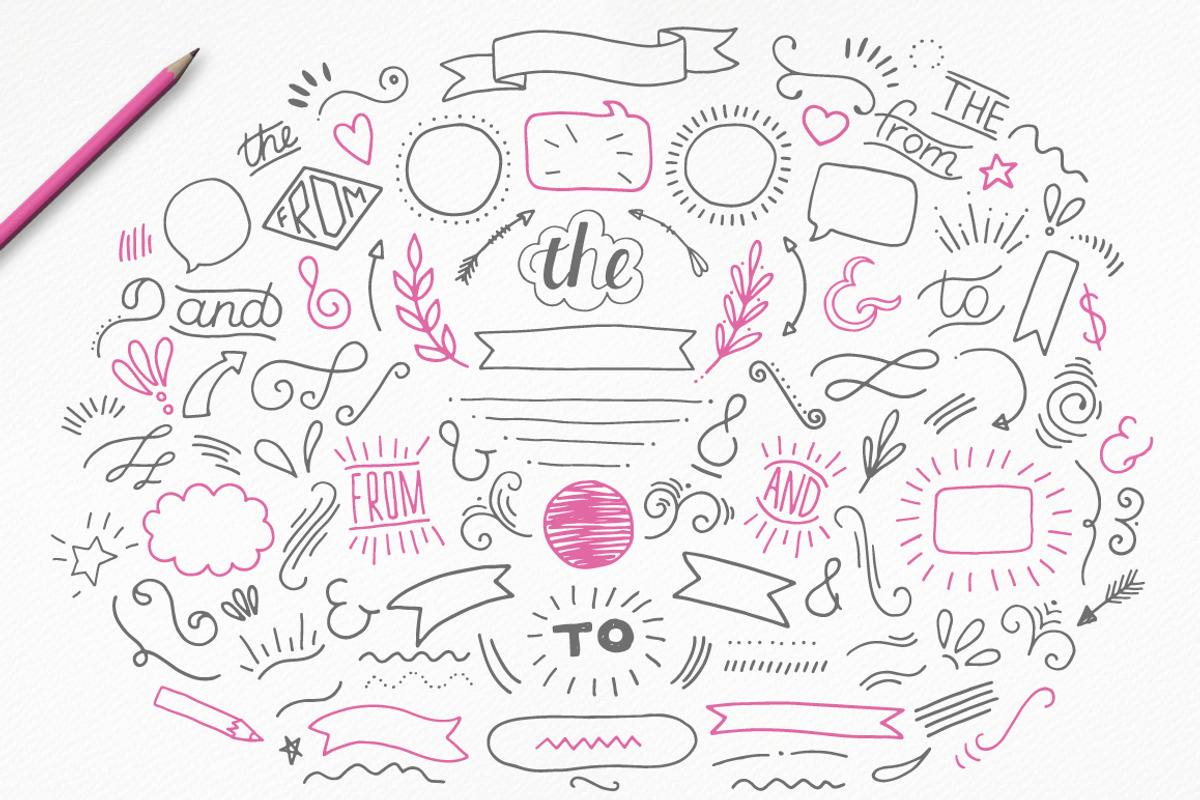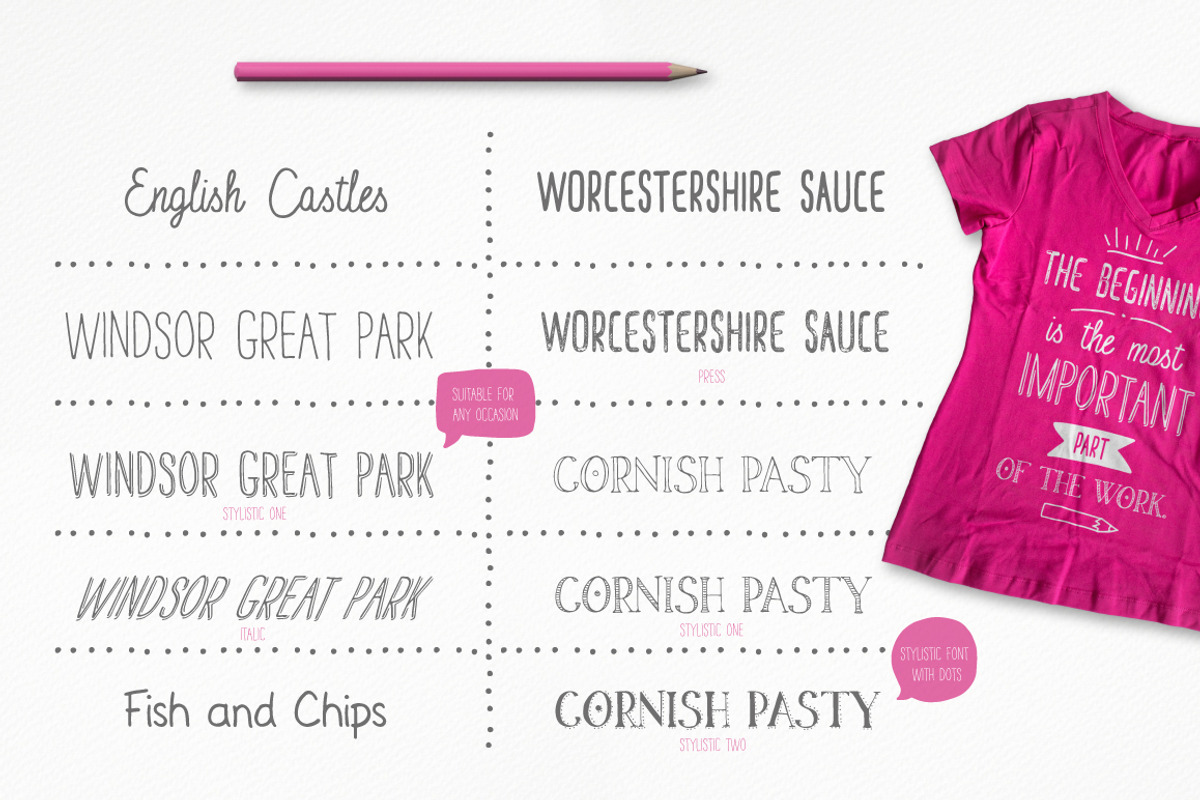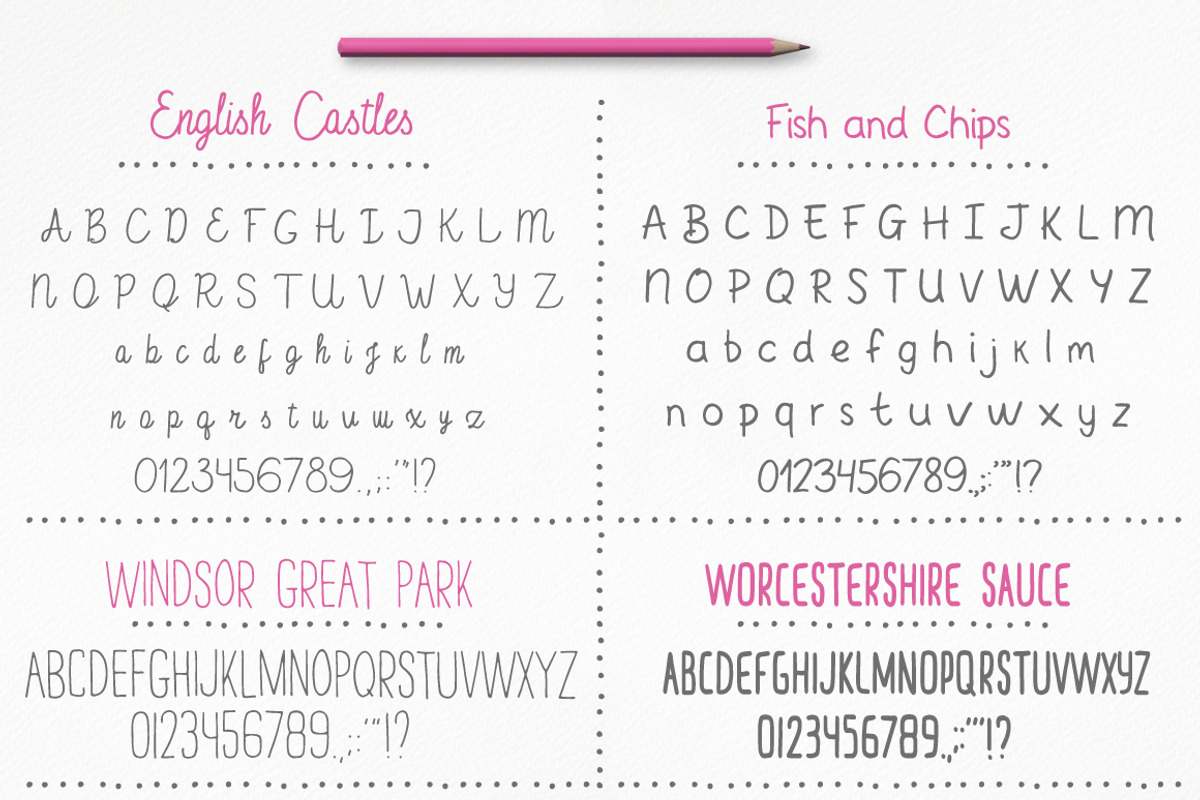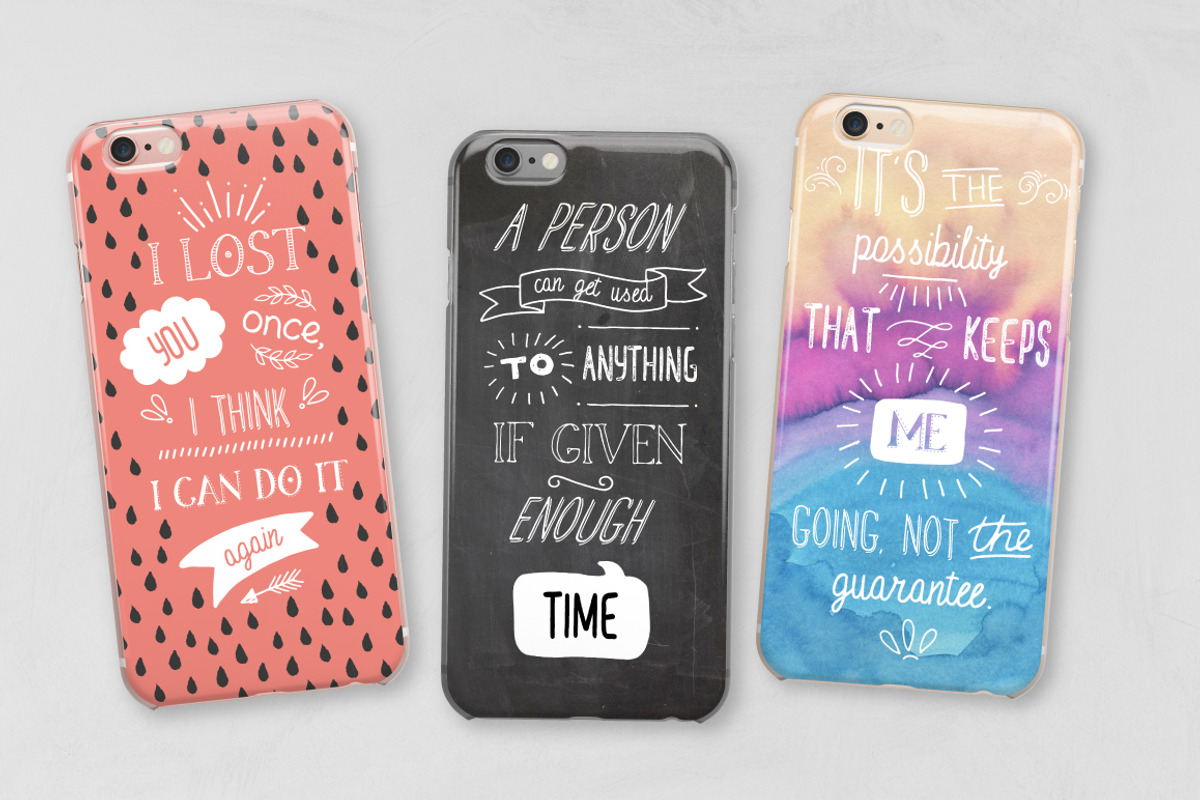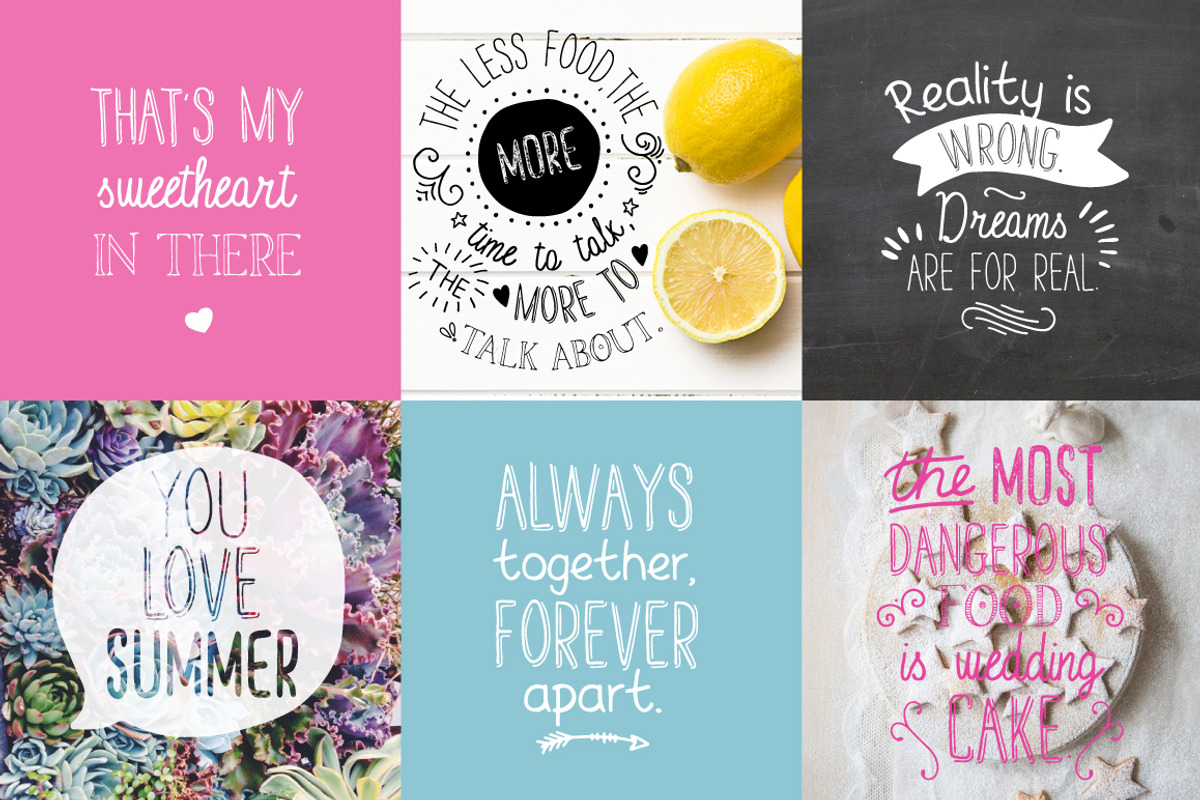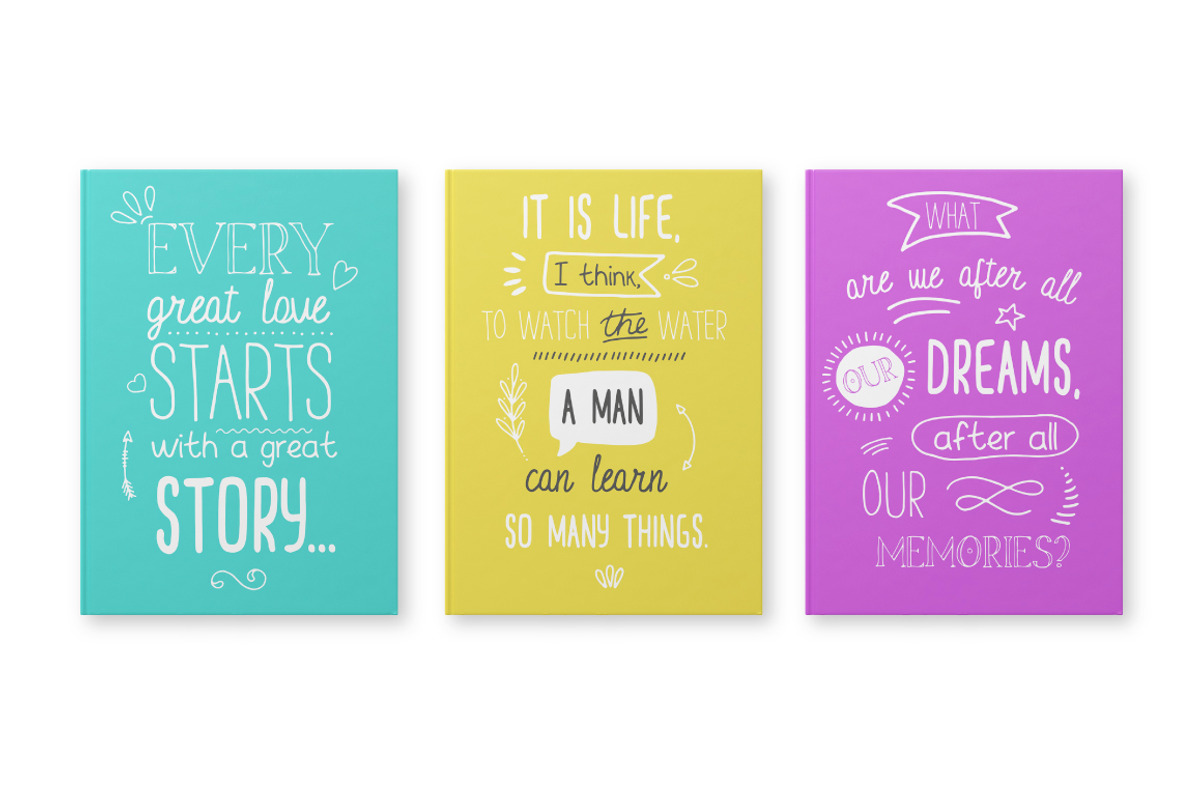
Handwritten Font Collection
Handwritten Font Collection by Julia Dreams is a font selected for branding, posters, packaging, typography.
- What's in the package: English Castles: This sleek and slim Script Font perfectly combined with any other font in package.
- Created specifically for this package.
- What's in the package: English Castles: This sleek and slim Script Font perfectly combined with any other font in package.
- Created specifically for this package.
- Windsor Great Park: Hand drawn Uppercase Sans Serif Font.
- Worcestershire Sauce: Also manually created Uppercase Display Font.
Why Handwritten Font Collection is worth a look
Handwritten Font Collection by Julia Dreams fits naturally into Branding, posters, packaging, typography.